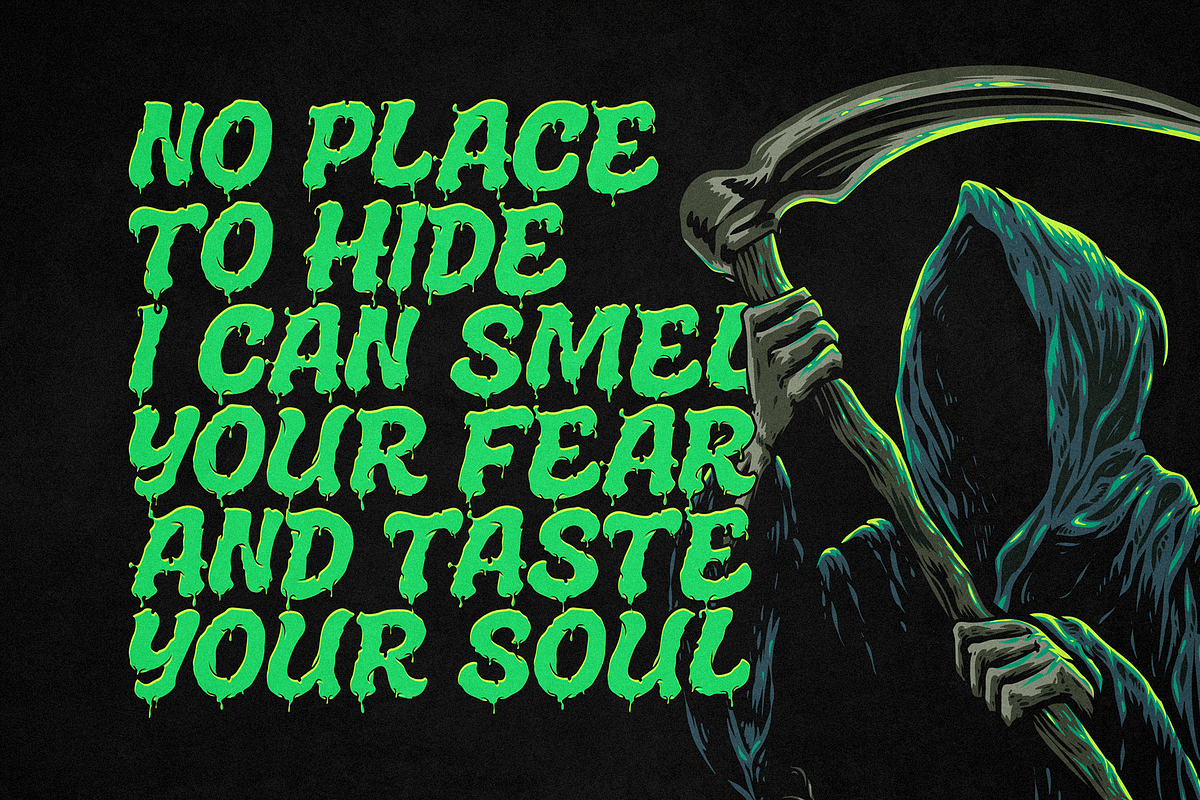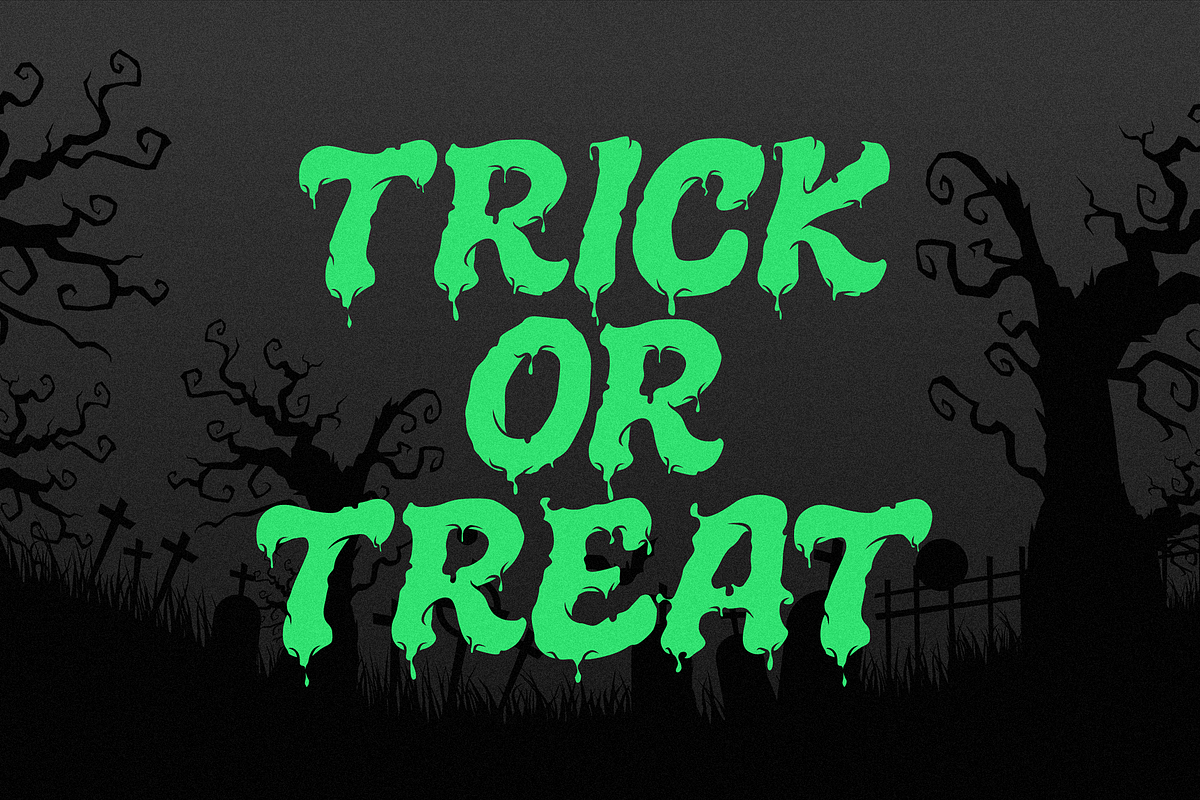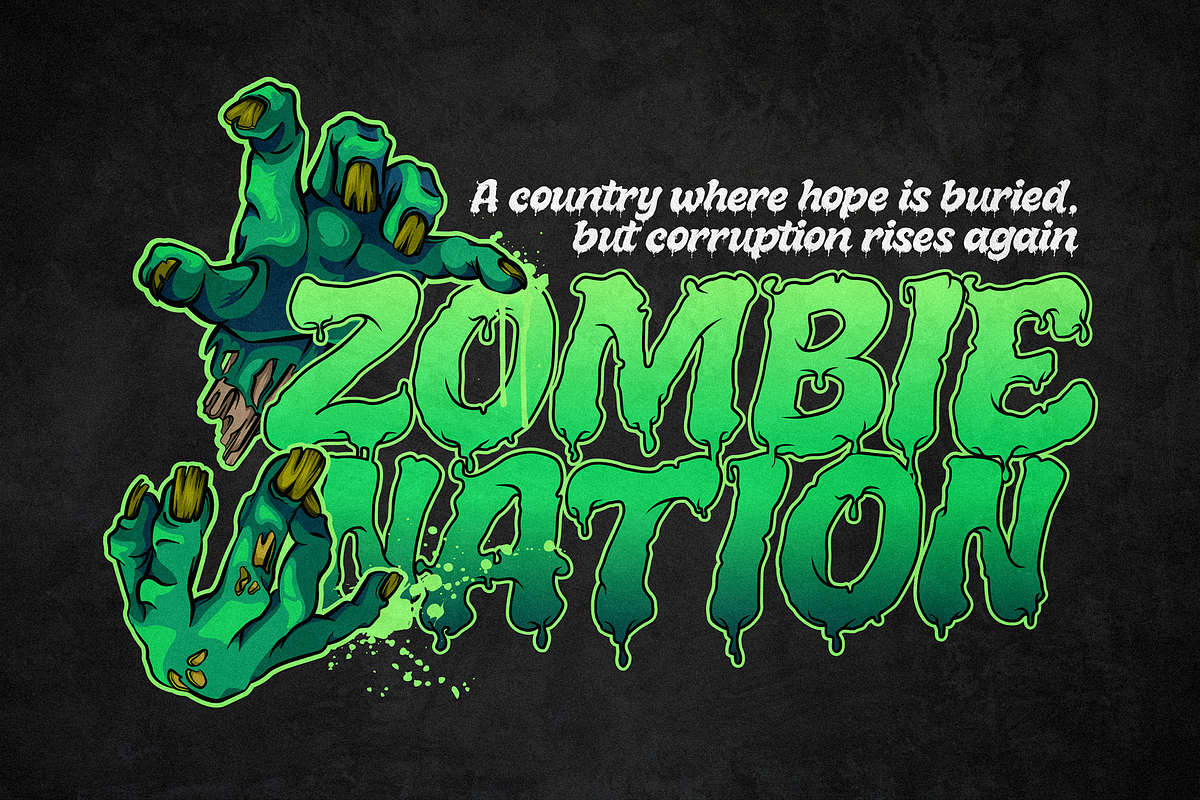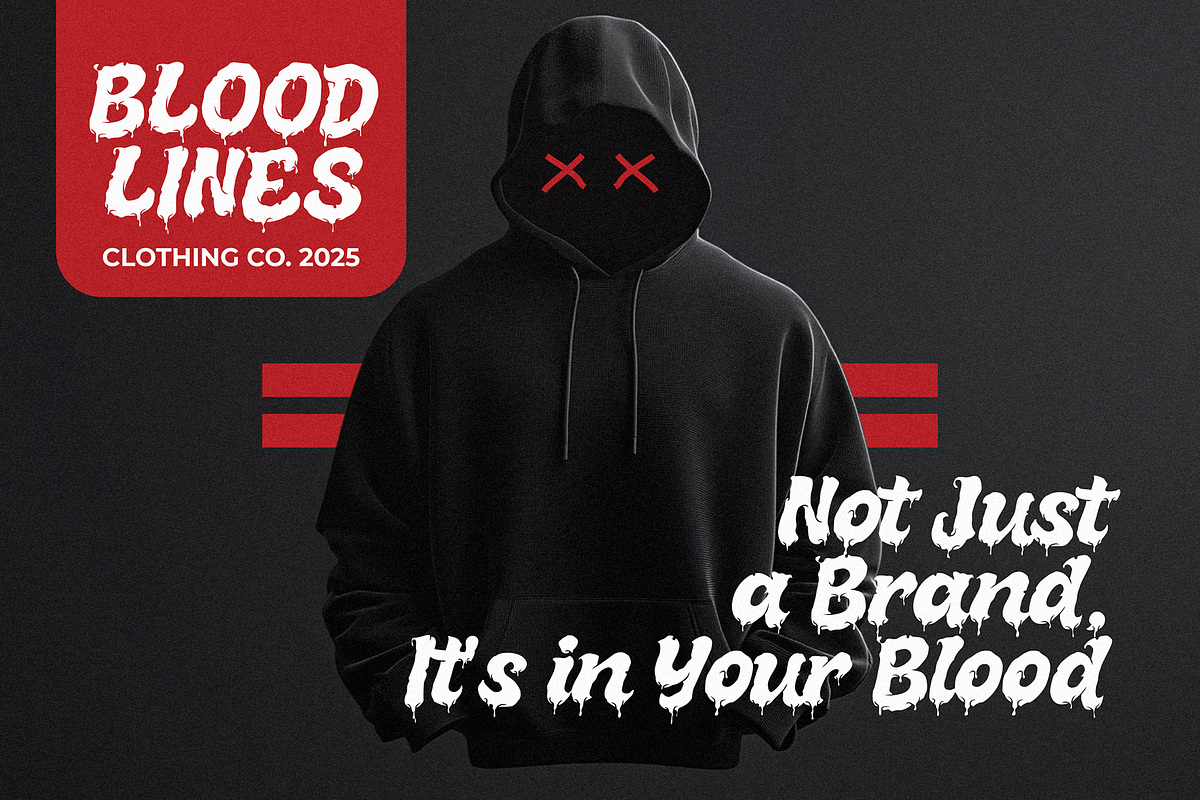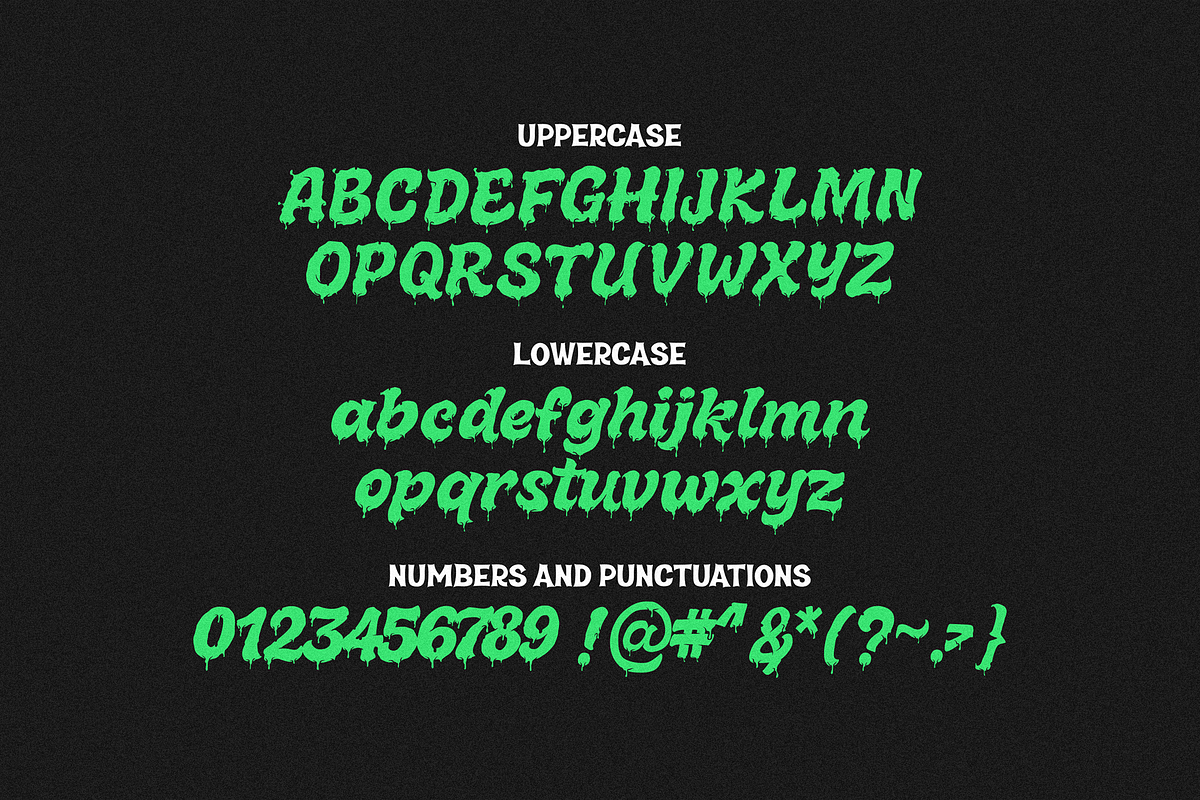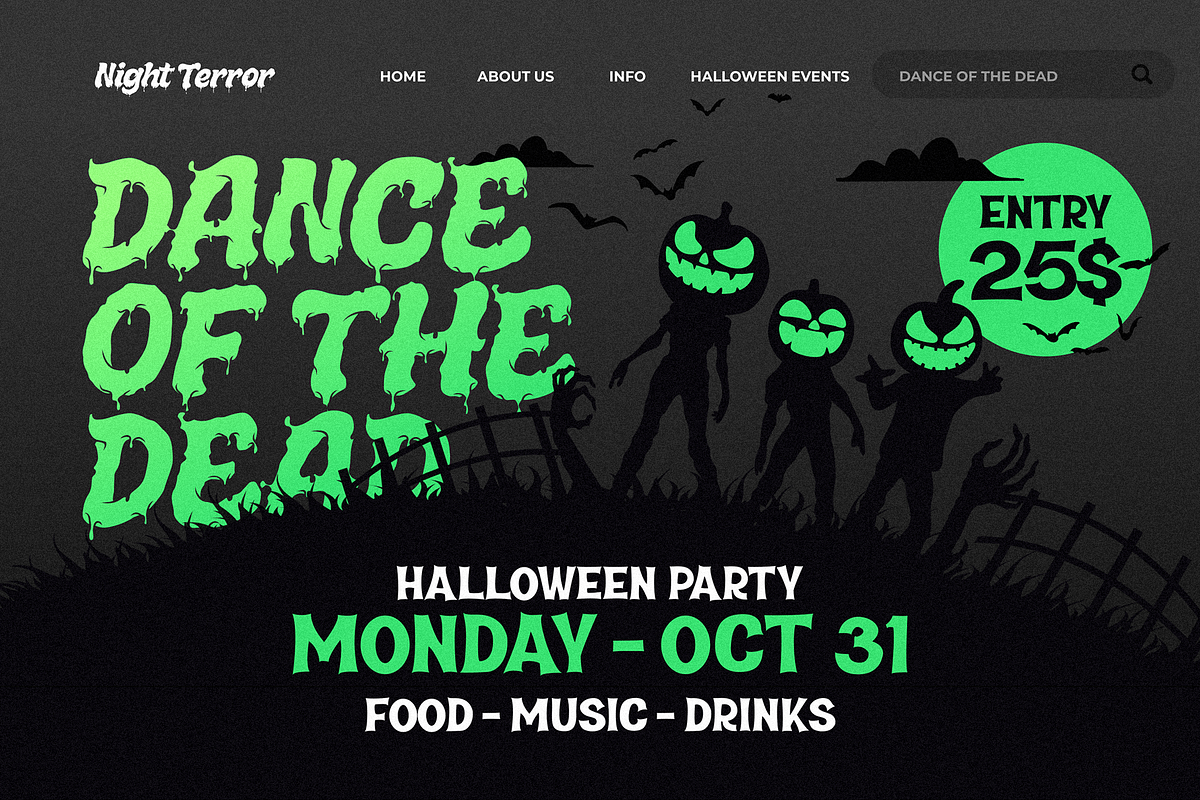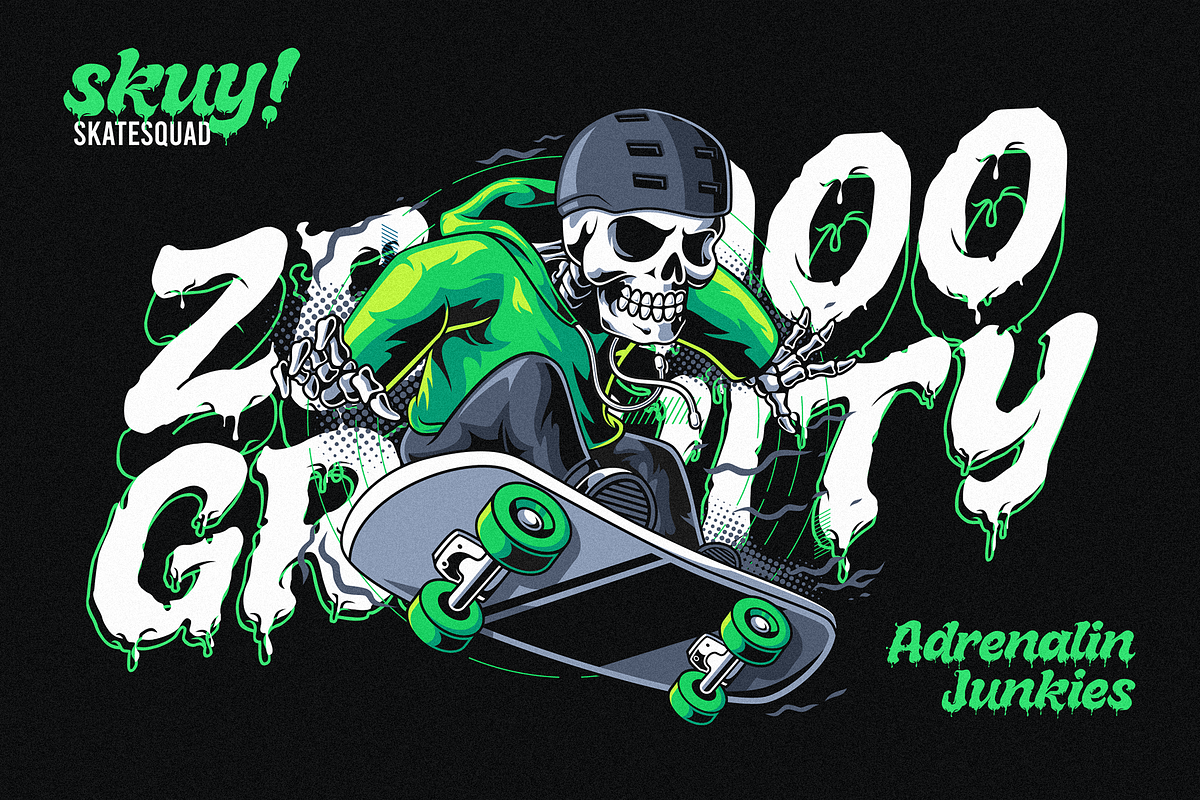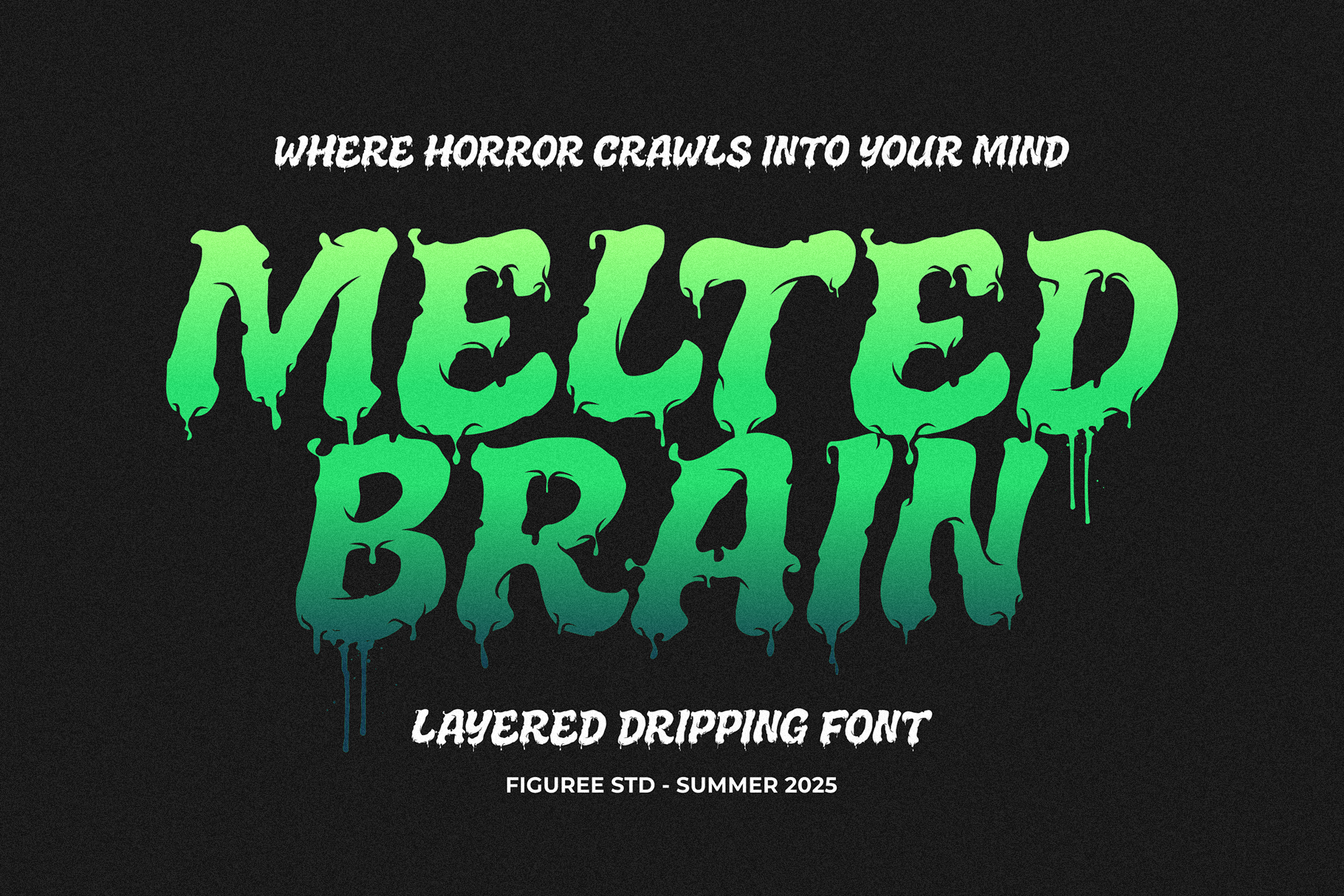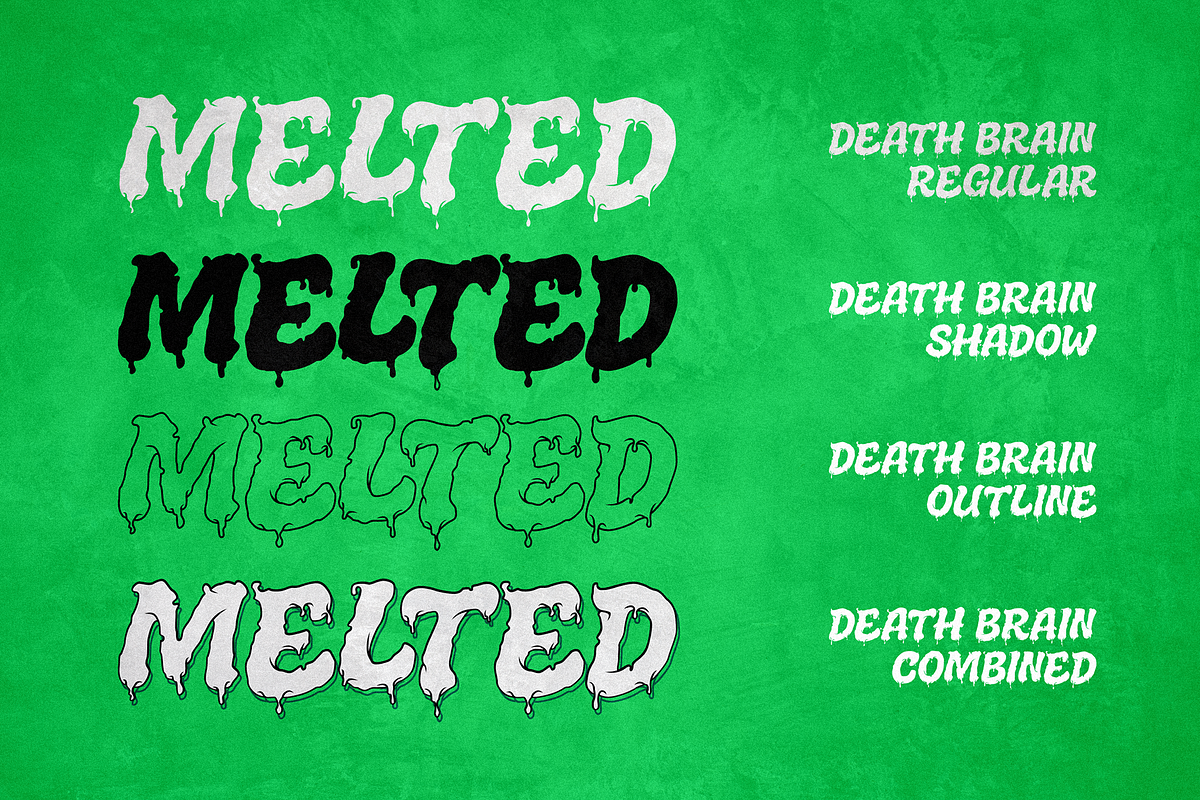
Melted Brain – Layered Dripping Font
Melted Brain is a spine-chilling layered dripping Halloween font designed to make your designs ooze with horror. Featuring uppercase and lowercase characters, it comes in three matching styles—Base, Outline, and Shadow—giving you the power to build terrifying, layered typography. Perfect for Halloween posters, haunted house flyers, spooky invitations, or eerie game titles.
The Ultimate Dripping Horror Font for Halloween If you’re searching for a horror display font that stands out in both print and digital, Melted Brain delivers pure nightmare fuel. It's melting, liquid-like strokes capture the essence of decay and fear—ideal for Halloween promotions, scary social graphics, and movie-style lettering. With its layered design, you can create dimensional text effects that look straight out of a horror film.
Multilingual Support for Global Fear Factor Melted Brain supports multilingual characters, making it perfect for international campaigns. Whether your creepy message is in English, Spanish, German, or French, this dripping Halloween font ensures your haunting visuals speak to everyone.
- 💀 Layered Dripping Halloween Style (Base, Outline, Shadow)
- 🔡 Includes Uppercase & Lowercase Letters
- 🌍 Multilingual Support
- 🎃 Perfect for horror posters, haunted flyers, scary quotes, and creepy branding
- 🩸 Adds instant fear factor and spooky atmosphere to your designs
Why Designers Love Melted Brain Designers love Melted Brain for its flexibility and drama. Its layered style allows for easy customization—add color, shadows, or glowing effects for maximum impact. It’s the go-to font for horror enthusiasts, Halloween event organizers, and game creators who want text that feels alive… and dangerous.
Drip Fear into Every Word With Melted Brain, you don’t just write—you drip, melt, and haunt your audience. Whether you’re promoting a haunted house, designing a horror cover, or creating eerie digital art, this layered dripping Halloween font gives your message the gruesome personality it deserves. Download it today and bring your nightmares to life.